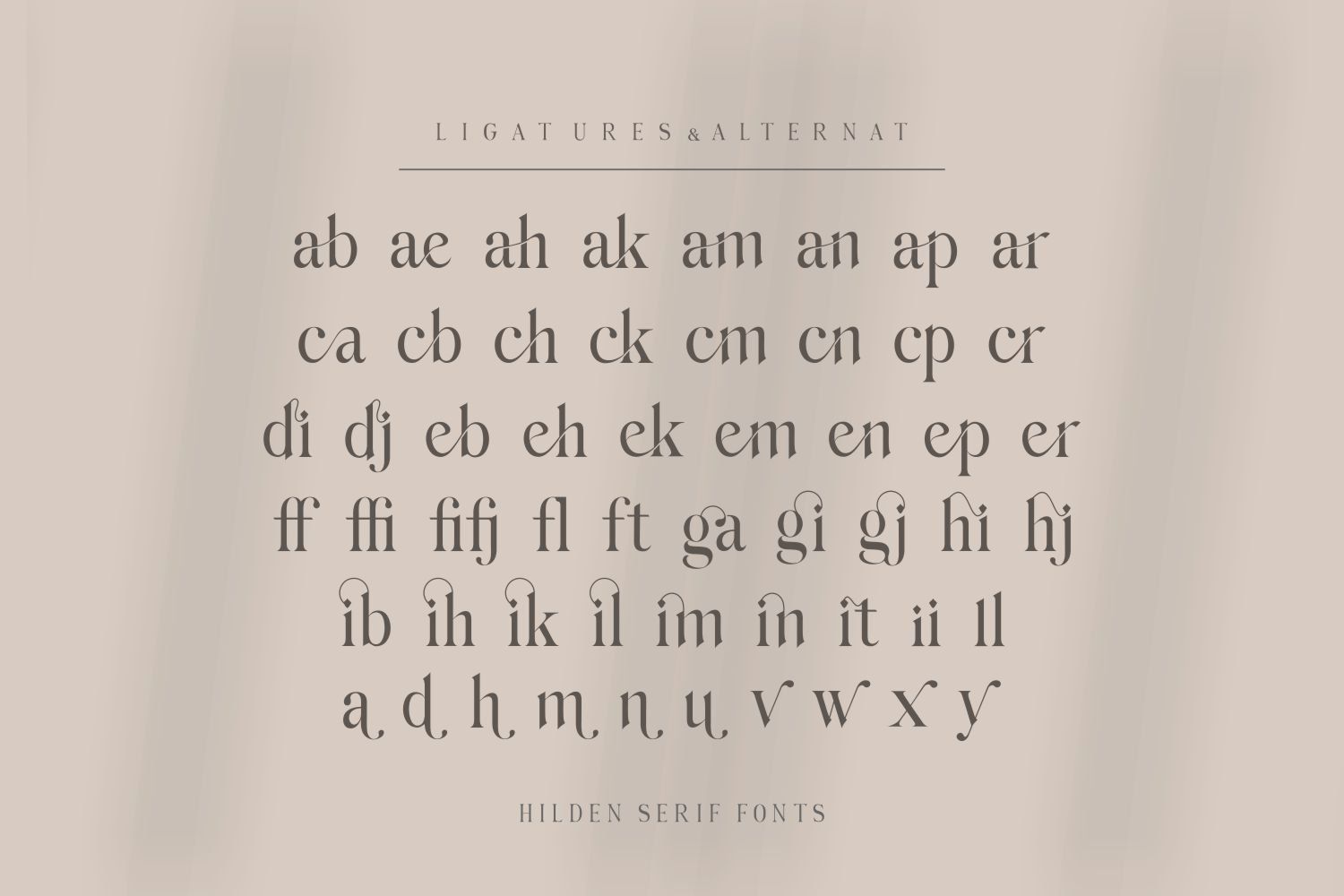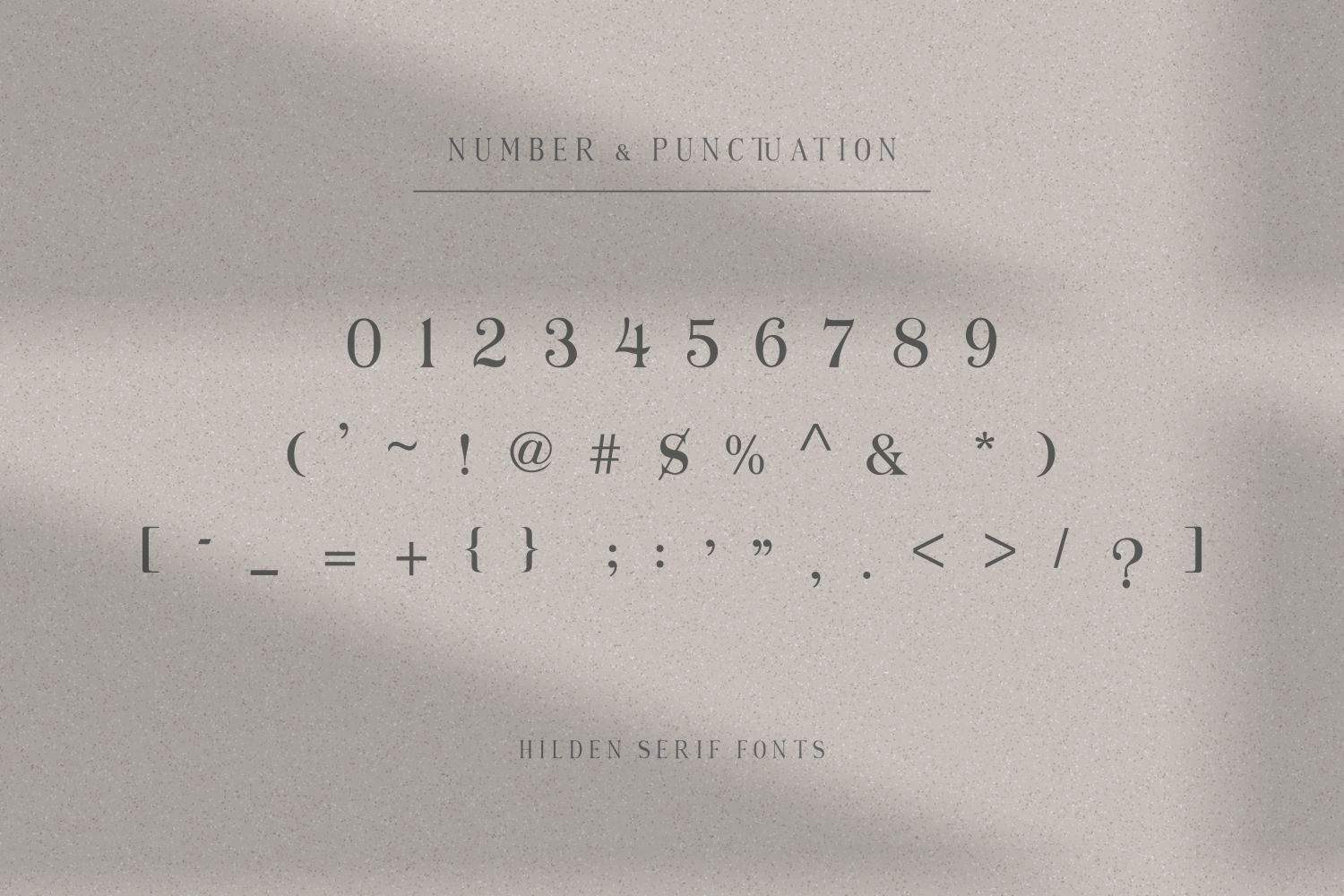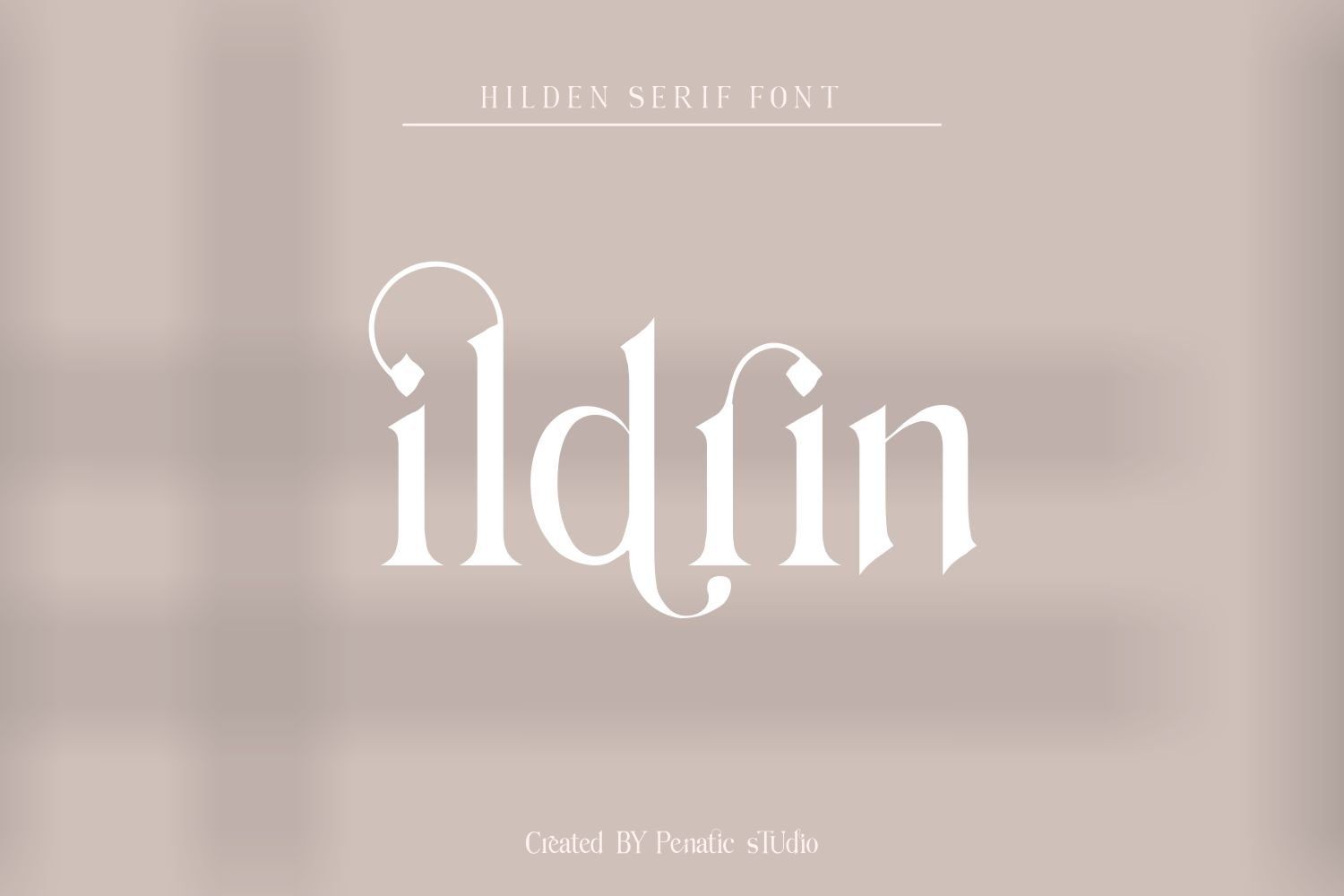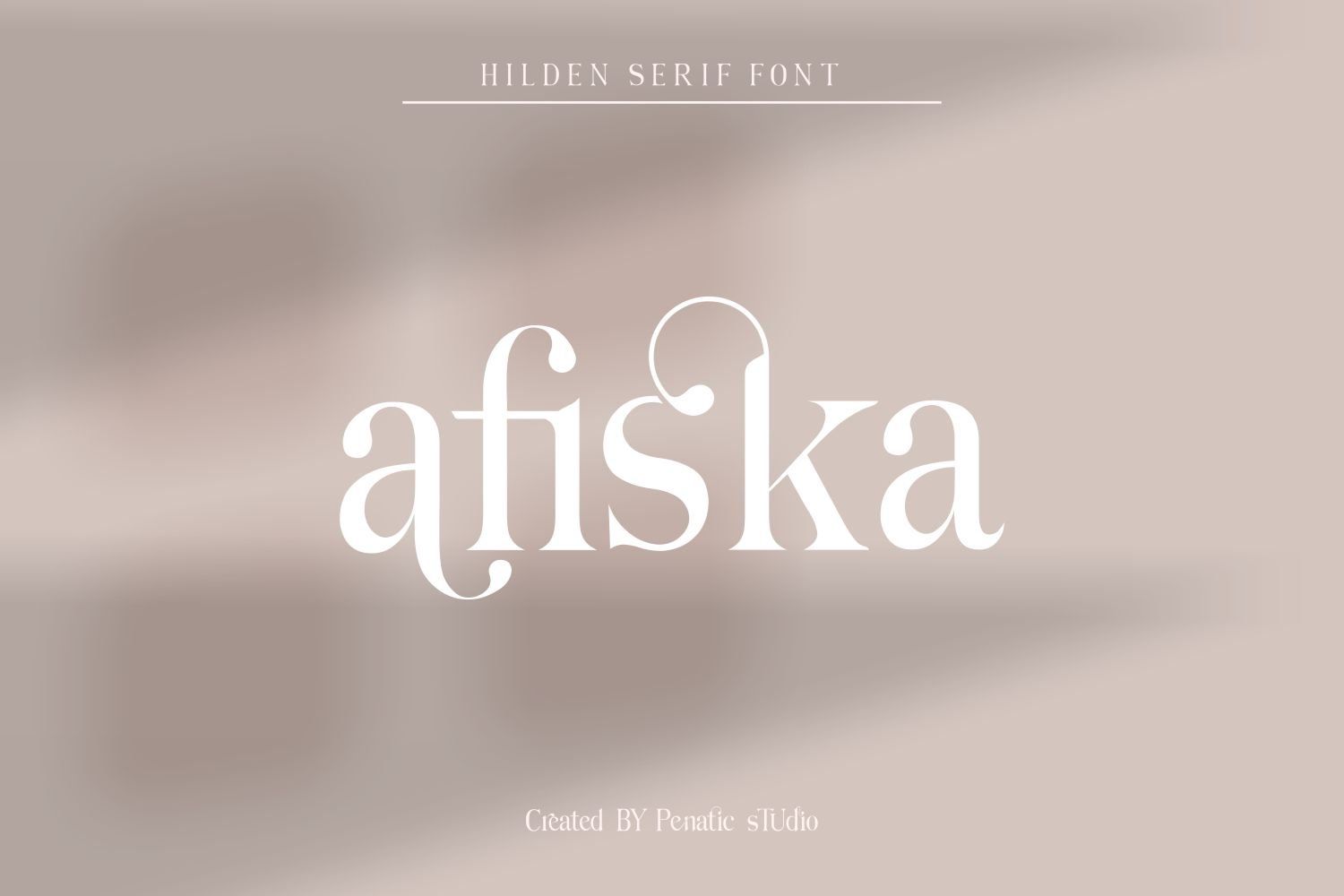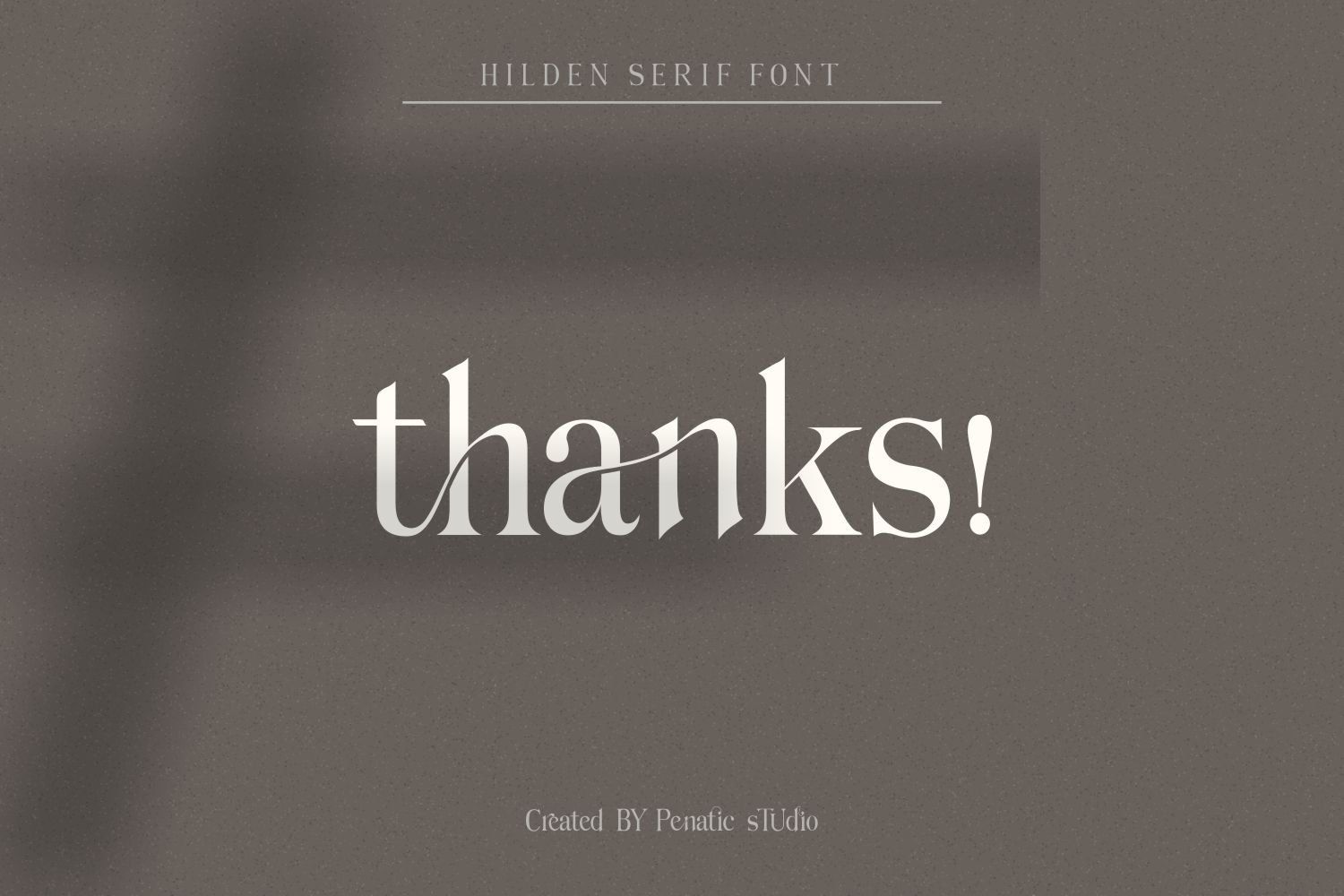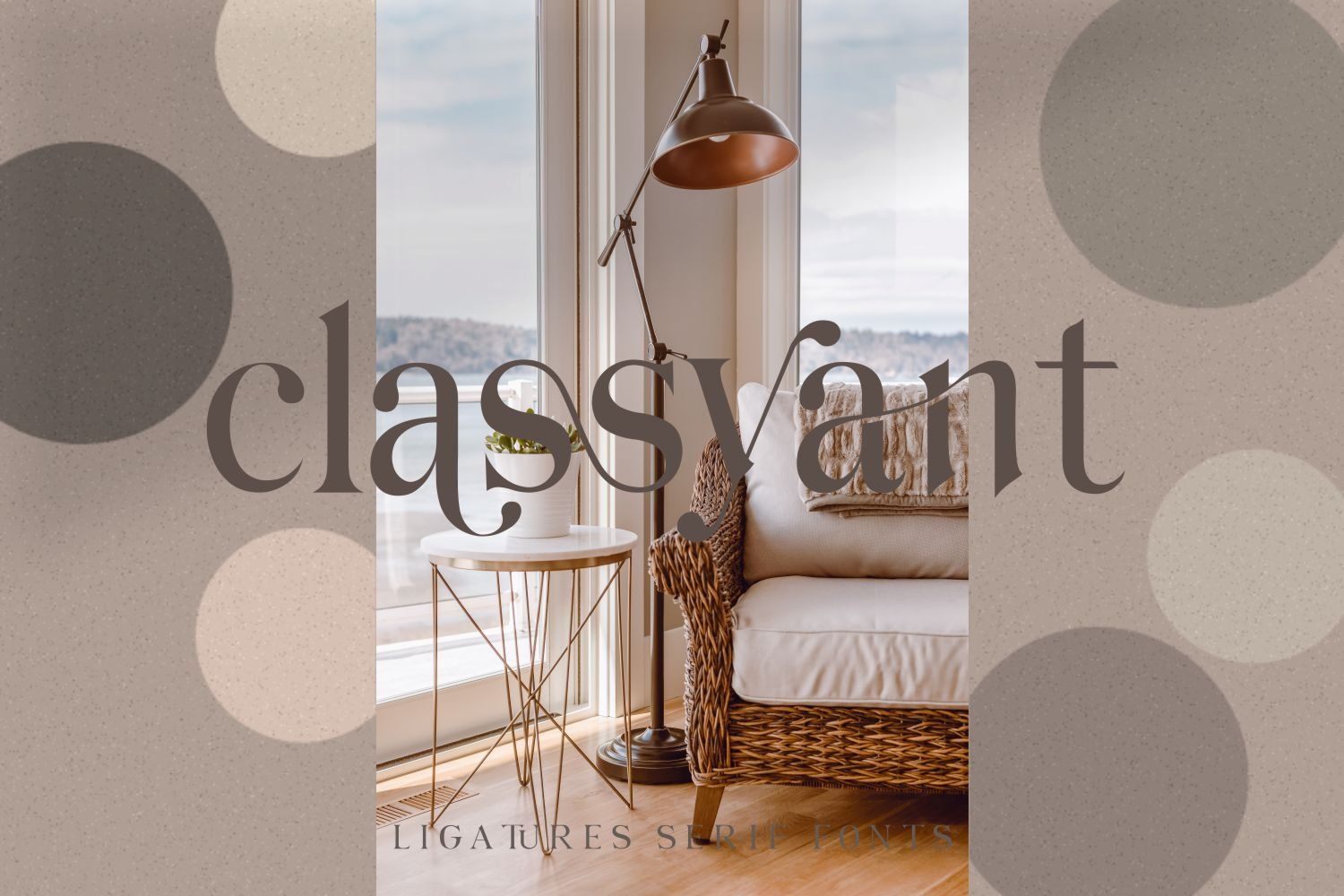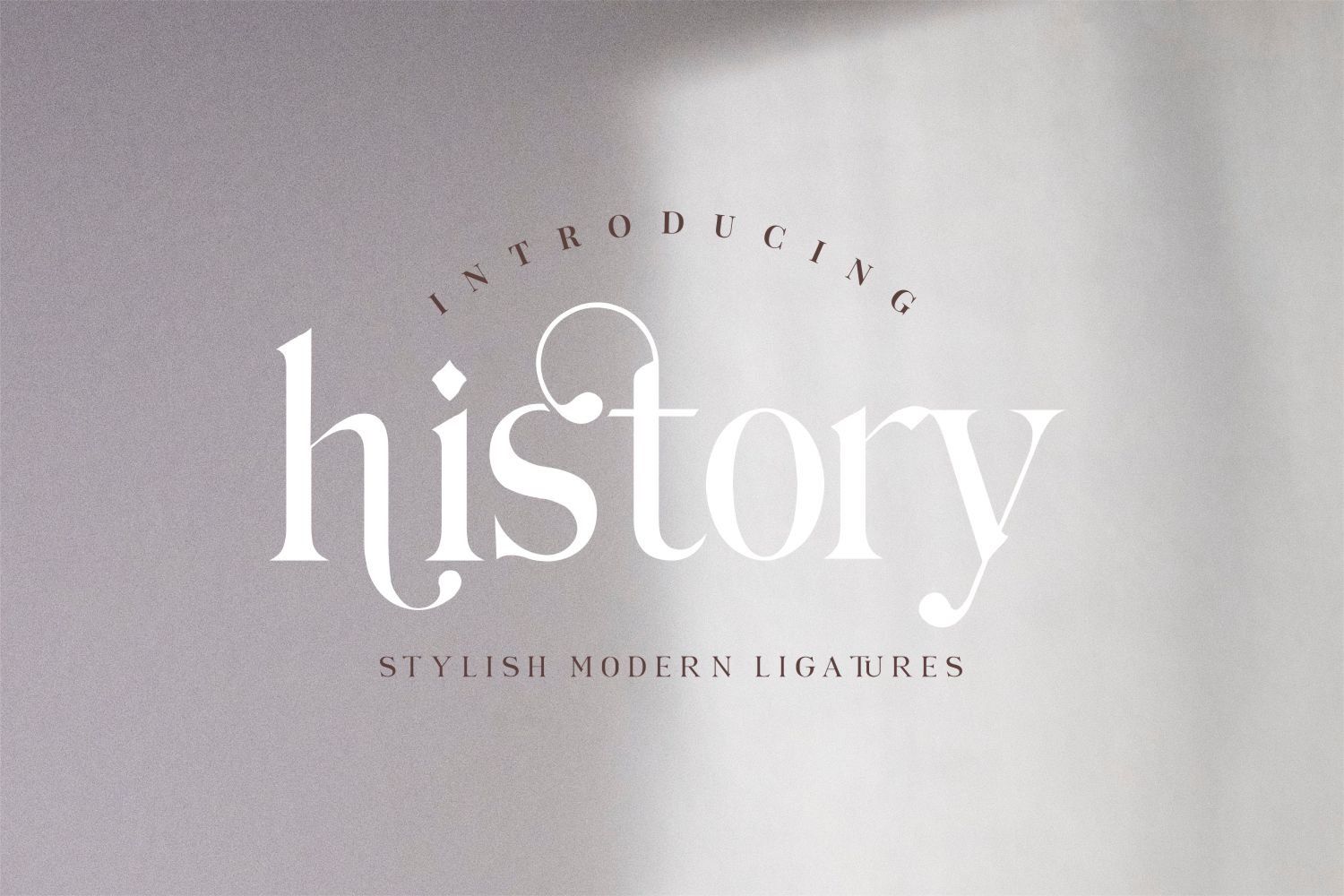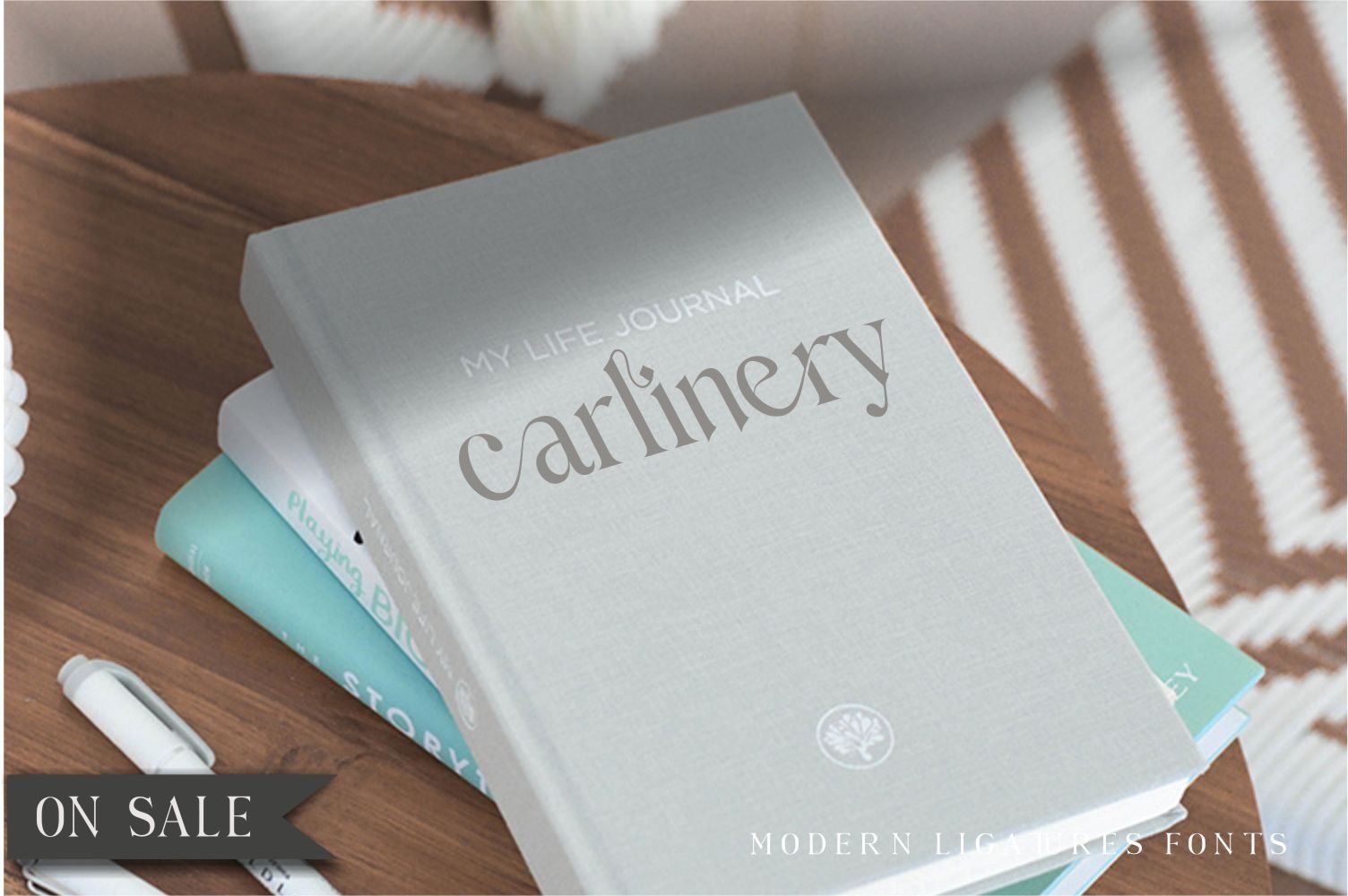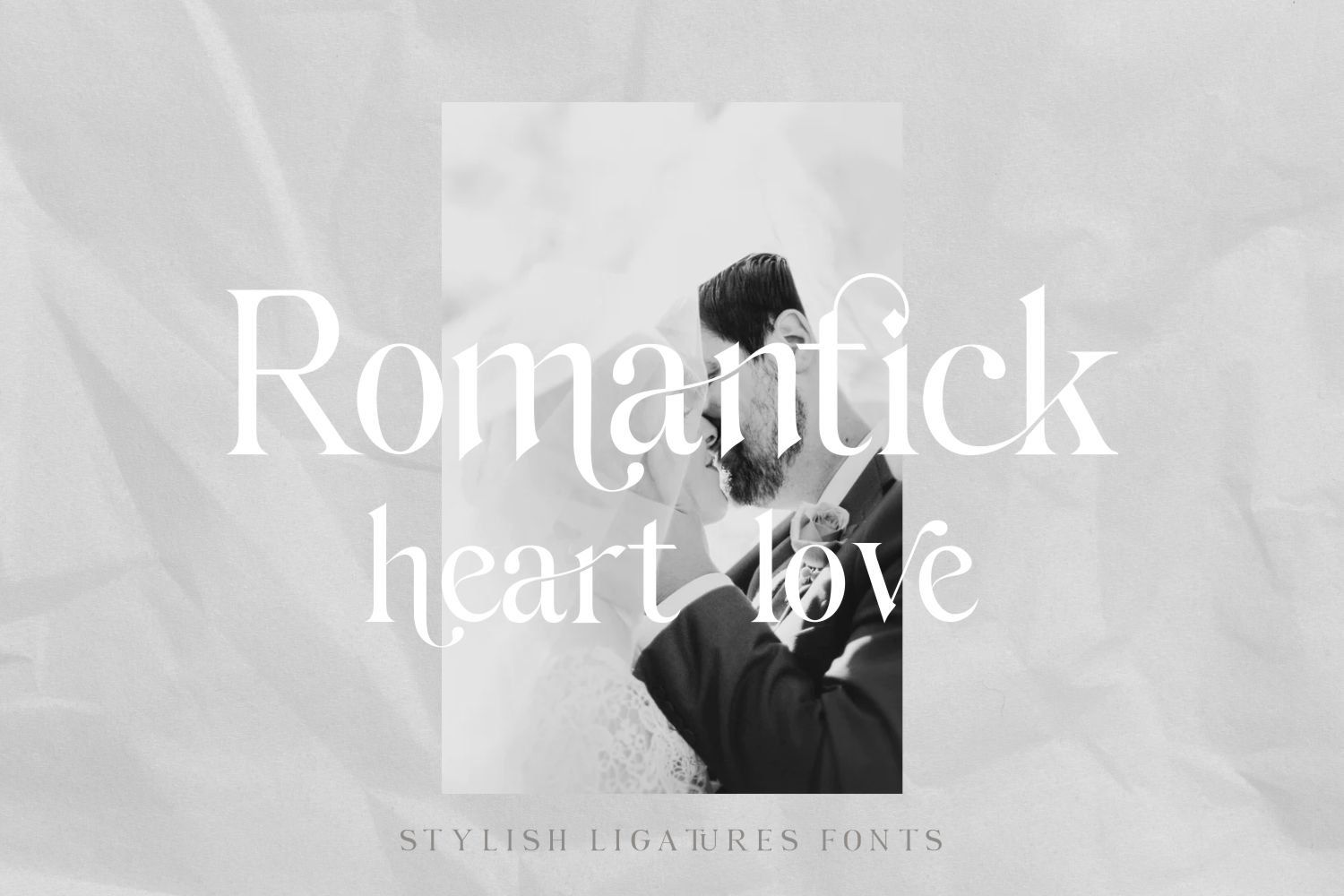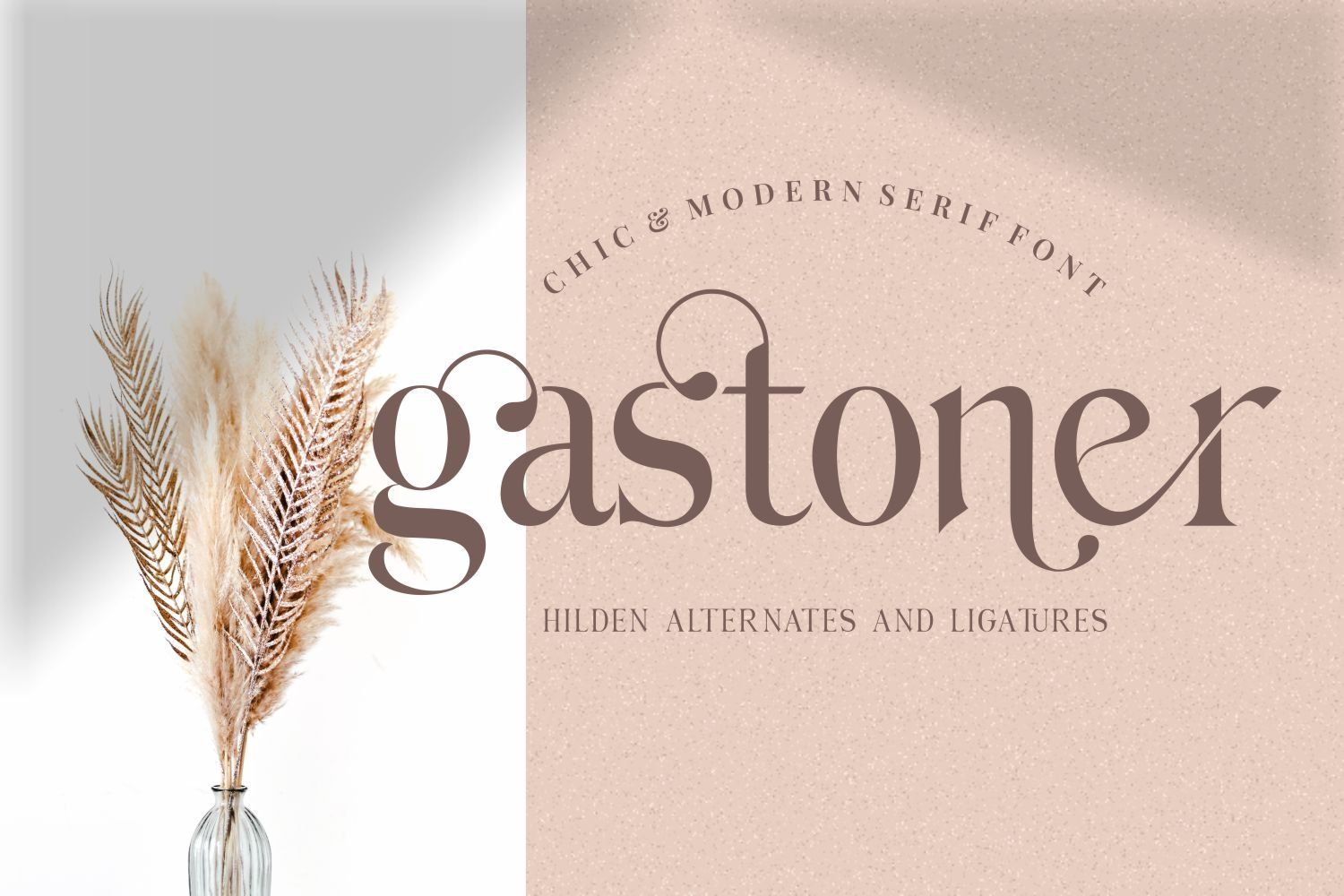
HILDEN is a serif typeface that is very elegant to use anywhere. Perfect for logo design, business cards, clothing branding, product packaging, magazine headlines, website design views or just as text overlay for any background image or for editorial projects.
the font is complemented by modern ligatures and beautiful alternative fonts.